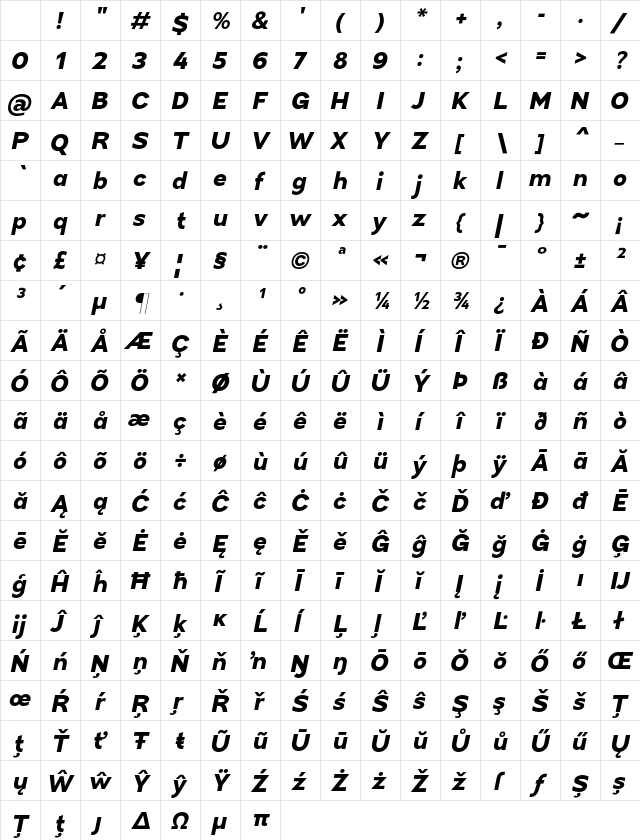
Complete Aikabon ExtBd Italic glyph index. Displaying only characters natively supported by Aikabon ExtBd Italic font.
Aikabon ExtBd is a composed and adaptable typeface that performs quietly and consistently across a wide range of design contexts. The slanted form adds forward momentum and visual energy.
Pro Tip: Use Aikabon ExtBd for emphasis, pull quotes, and subheadings where its slanted energy can add rhythm to the layout.